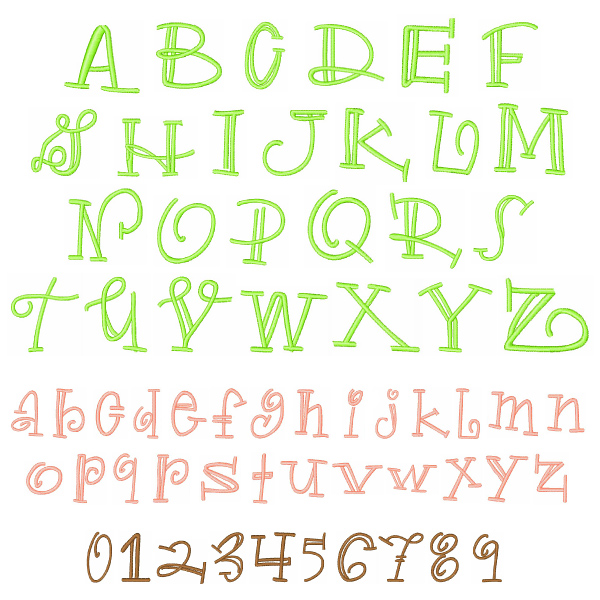
The form and shape of the letters is the basis of readability and mood of the brand. Austie bost on a whim austie bost fonts 1 styles from $5.00. It seems that my little font library on my computer continues to grow by leaps and bounds.